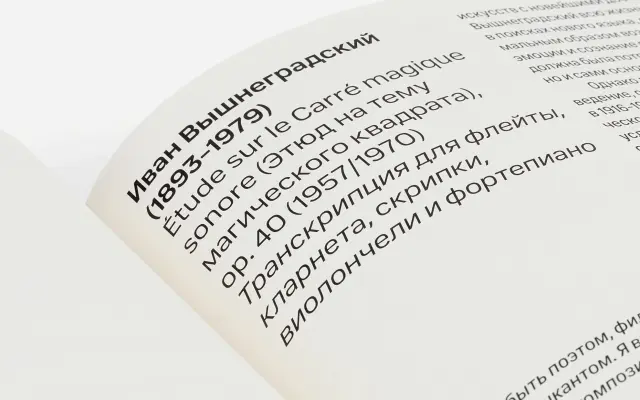
CoFo Weather
A large variable grotesque spanning five widths and six weights, with full italic coverage and dual Latin and Cyrillic support across 60 static styles.
CoFo Weather is distributed as both a variable font and a 60-style static family, running from Condensed Hairline to Extended Black with matching italics throughout. Five width grades — Condensed, Narrow, Normal, Wide and Extended — give the family considerable range for editorial and branding work across different column widths and languages. Coverage includes Latin and Cyrillic character sets, though the page notes a reduced character set relative to full-coverage families.
The page offers no explicit classification, but the specimen shows a clean, upright sans-serif with variable width and weight axes, consistent with a contemporary grotesque family. The breadth of widths from Condensed to Extended and the Latin/Cyrillic dual-script support point to a functional grotesque.